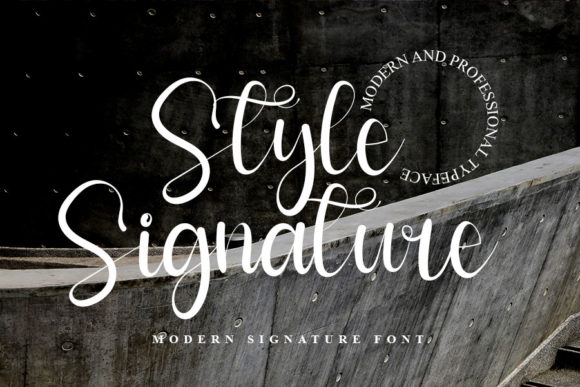
Immerse yourself in the captivating world of Style Signature Font, a script font that evokes a touch of elegance and intrigue. Embark on a journey of creativity as you explore the distinct and well-rounded letters that define this masterpiece. Prepare to be captivated by its incredibly versatile style, allowing you to conjure spectacular designs that leave a lasting impression.
Style Signature Font is the perfect companion for those seeking a font that exudes charm and sophistication. Its delicate strokes and graceful curves lend an air of refinement to any project. Whether you're crafting a captivating horror story, designing an alluring invitation, or creating a visually stunning logo, Style Signature Font will elevate your designs to new heights.
With Style Signature Font, you unlock a boundless realm of creative possibilities. Its enchanting style adds a touch of magic to your projects, inviting your audience to delve deeper into your creations. Unleash your imagination and let Style Signature Font guide you on an artistic journey that knows no limits.
So, if you're seeking a font that blends elegance, intrigue, and versatility, look no further than Style Signature Font. Allow your creativity to soar as you craft designs that captivate and inspire. The possibilities are endless, waiting for you to explore and make your mark on the world of design.